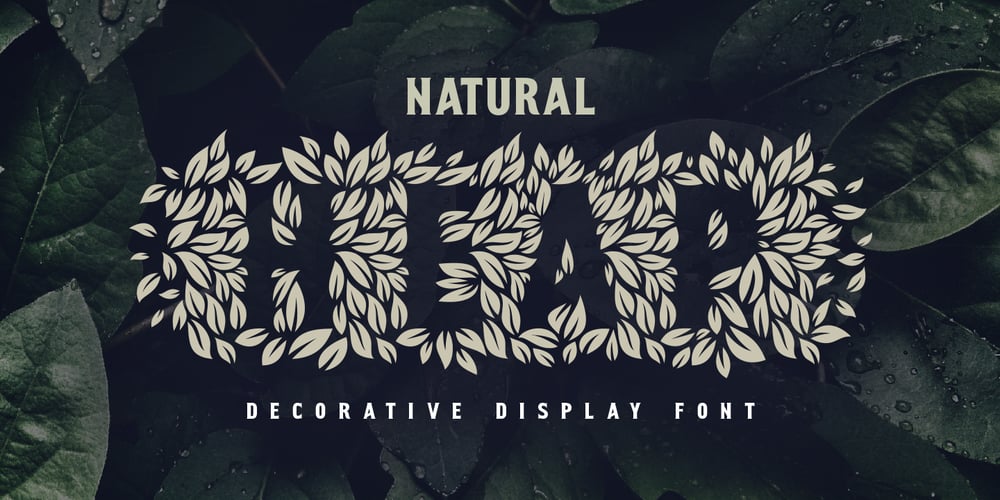
Natural Heap Font Family was designed by Gleb Guralnyk and published by Gleb Guralnyk. Natural Heap contains 1 styles and family package options. Hi, introducing a decorative font – Natural Heap! It’s a handcrafted typeface that consists of hundreds of leaves that are seamlesly combined in a flowing pattern. Natural Heap font will perfectly fit for various label and logo designs. It’s working better with short big words, when all the details are visible. To create an organic begining and ending of the word, type underscore characters on both sides (contextual alternates feature must be turned on). Natural Heap font has a west european multilingual support, check out the screenshots with available characters.Thank you and have a nice day!